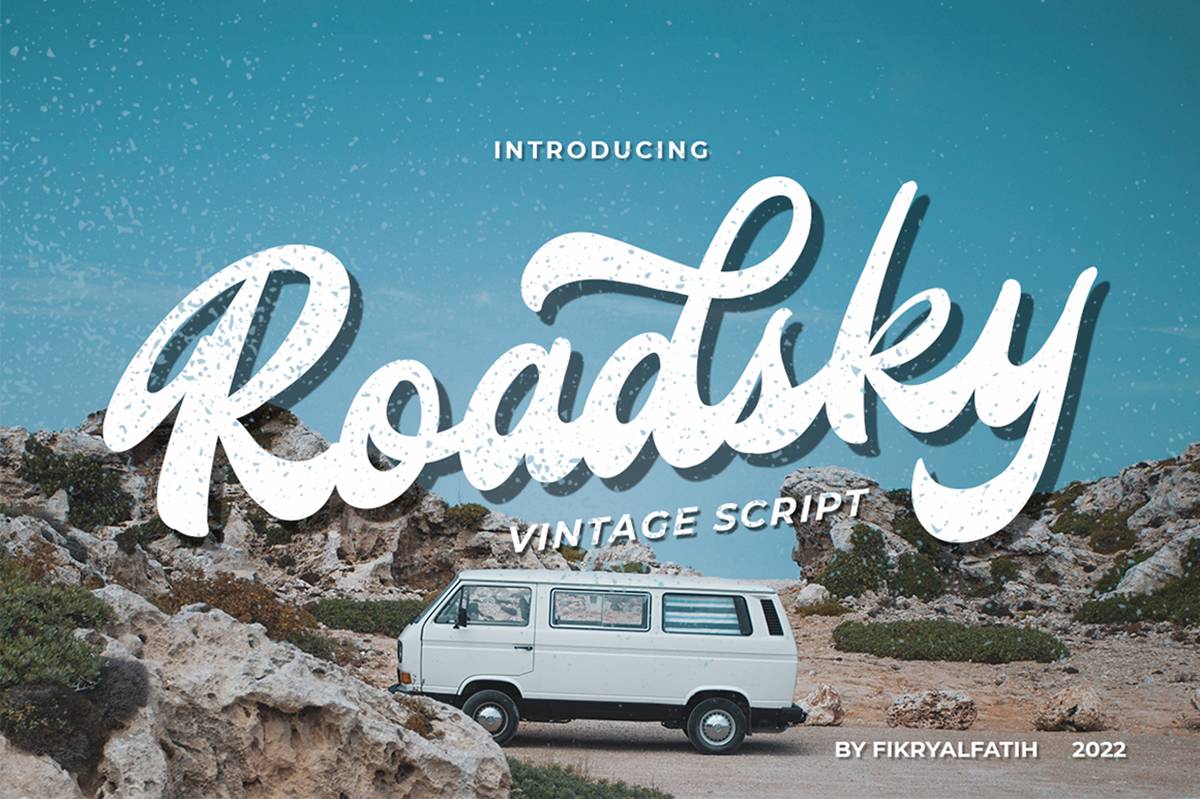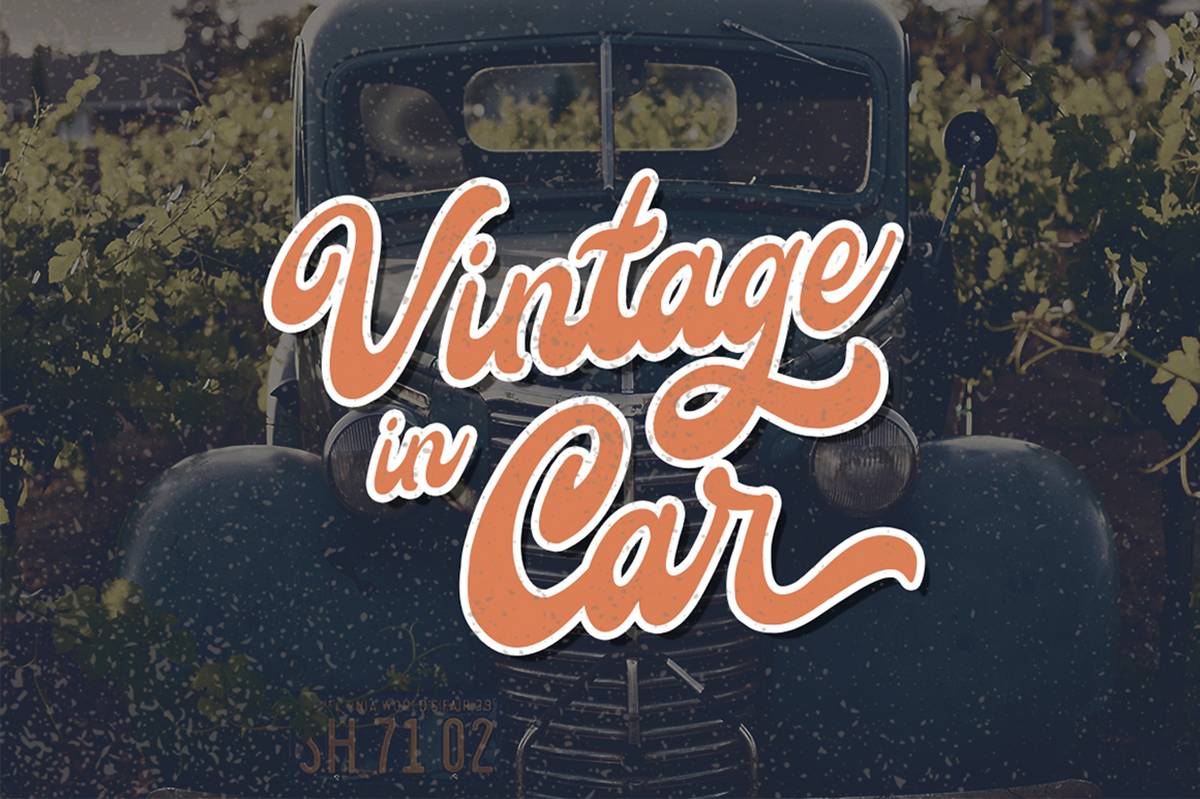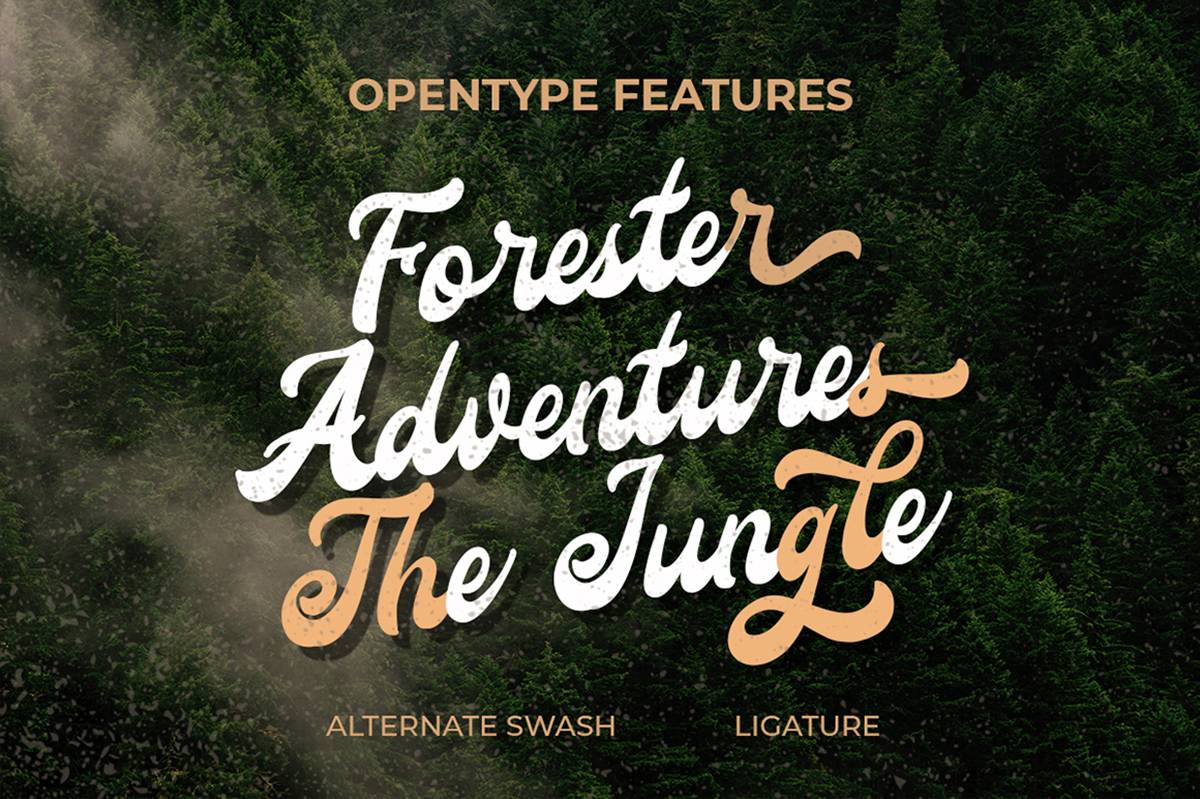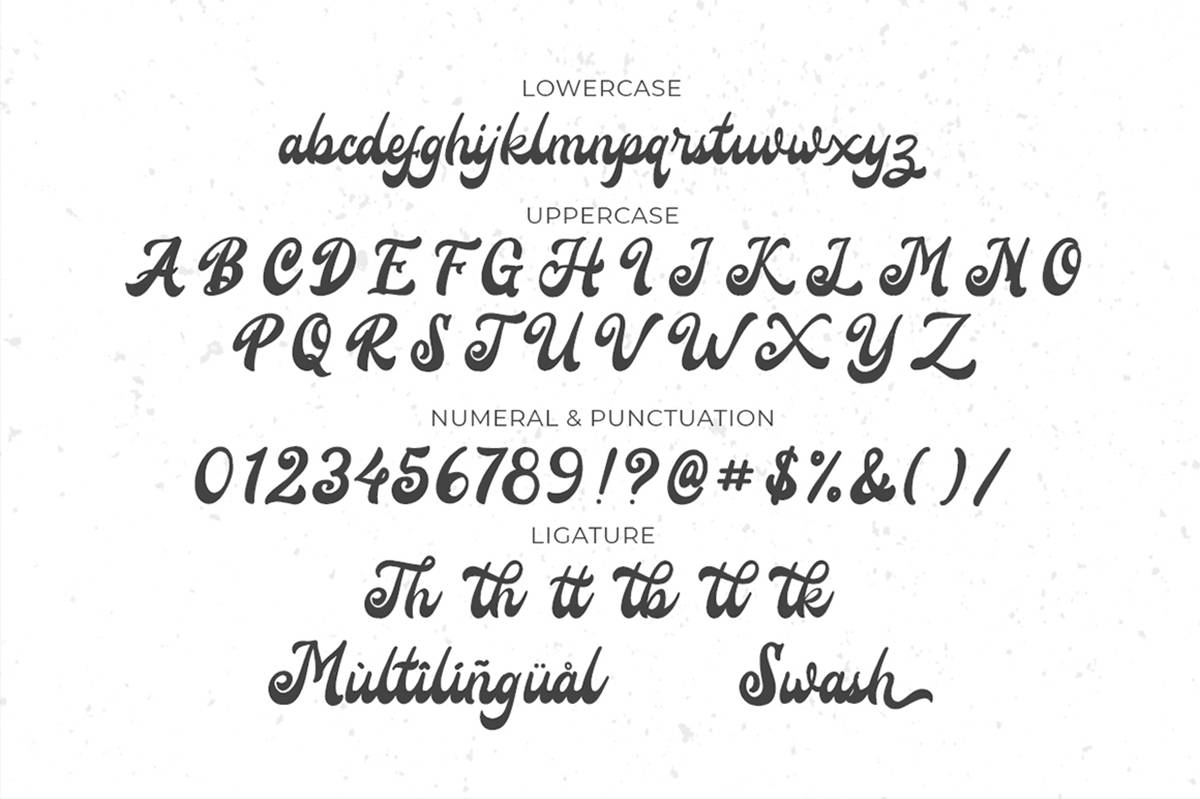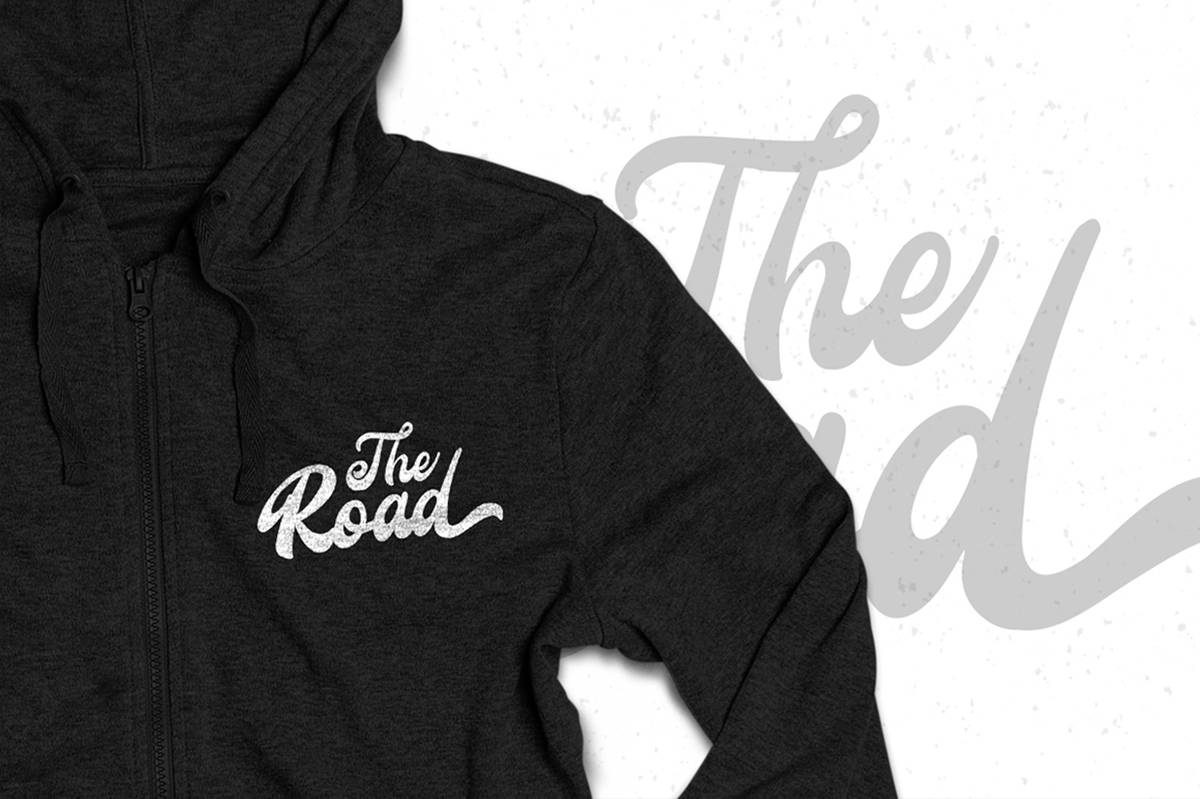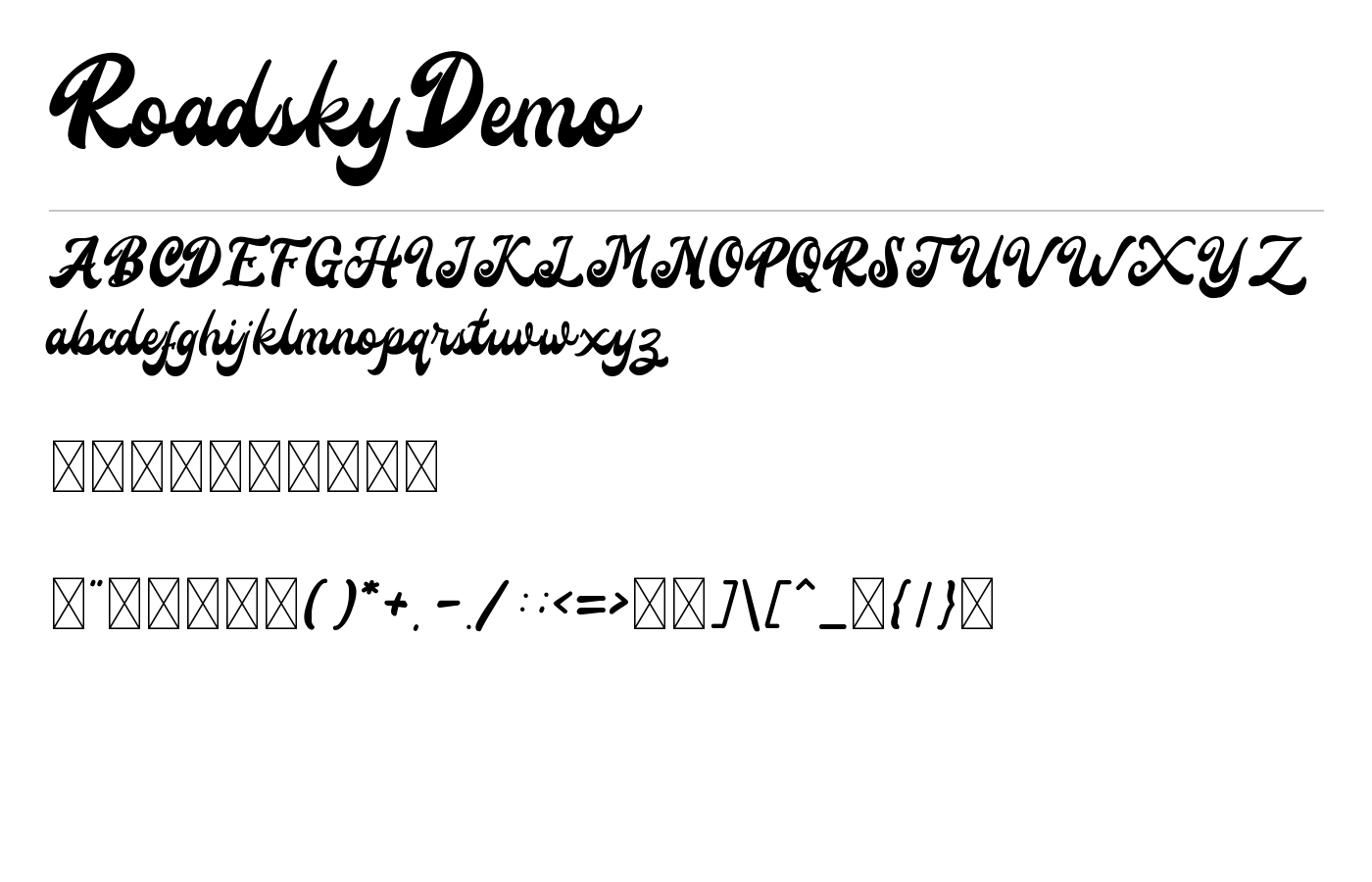
Roadsky Vintage Script is a bold, lively script font with smooth, flowing curves and a charming retro feel. Its high contrast strokes and connected letterforms give it an elegant yet approachable personality, making it perfect for vintage-inspired branding, logos, and headlines that need a nostalgic yet stylish touch. This font works well where a handcrafted, energetic look is desired, adding warmth and character to various design projects.
Roadsky Vintage Script
About Roadsky Vintage Script
| Font family | Roadsky Vintage Script |
| Designer | fikryalfatih |